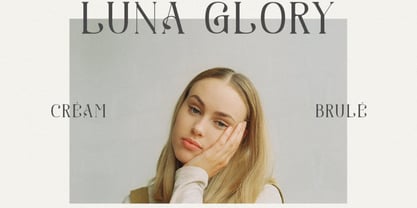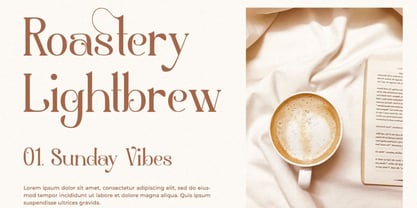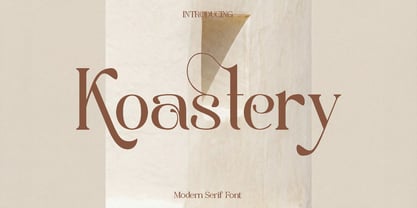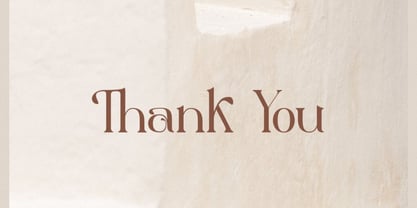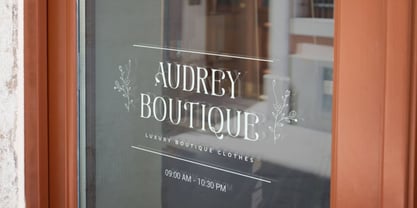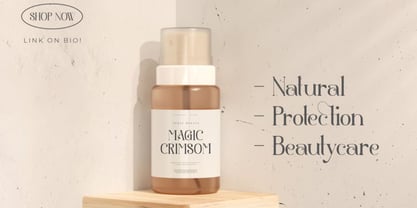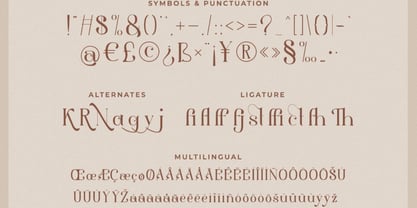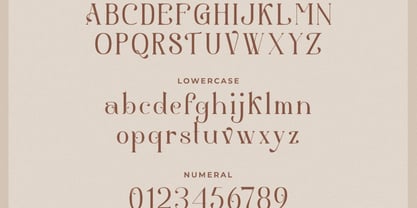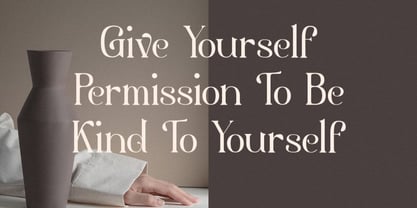
Koastery
by Only Fonts
The Koastery Font Family was designed by Olivia Love and published by Only Fonts. Koastery contains 1 styles. More about this family
Koastery is a modern serif font designed to capture the beauty of simplicity and the elegance of clean typography. Inspired by contemporary editorial design and minimalist aesthetics, Koastery brings a calm and refined presence to every composition. Its balanced proportions and subtle serif details create a look that feels fresh, polished, and effortlessly sophisticated. This typeface shines in projects where clarity and style go hand in hand. Koastery is perfect for branding, logos, magazines, websites, social media graphics, packaging, and elegant presentations. Whether used for bold headlines or refined body text, it maintains excellent readability while adding a modern touch that enhances the overall visual tone of your design. Koastery feels light, versatile, and timeless. It gives designers the freedom to create layouts that feel open, stylish, and contemporary. From lifestyle brands to creative portfolios and editorial layouts, Koastery adapts beautifully across both print and digital mediums, helping your work communicate with confidence and subtle charm. Designed with flexibility in mind, Koastery includes thoughtful typographic details that allow you to craft distinctive and expressive compositions. Its minimalist personality makes it an essential addition to any designer’s toolkit, especially for those who value clean design and modern elegance. Koastery Modern Serif Features: • Uppercase and lowercase characters • Symbols and punctuation • Numerals • Ligatures and alternates • Multilingual support Thank you and best of luck with your designs!
Designers: Olivia Love
Current Foundry: Only Fonts